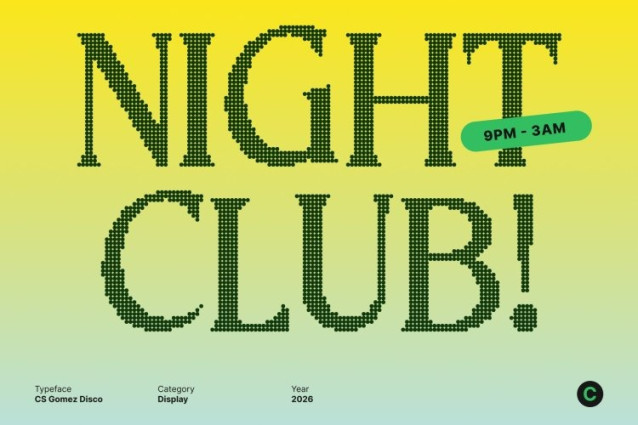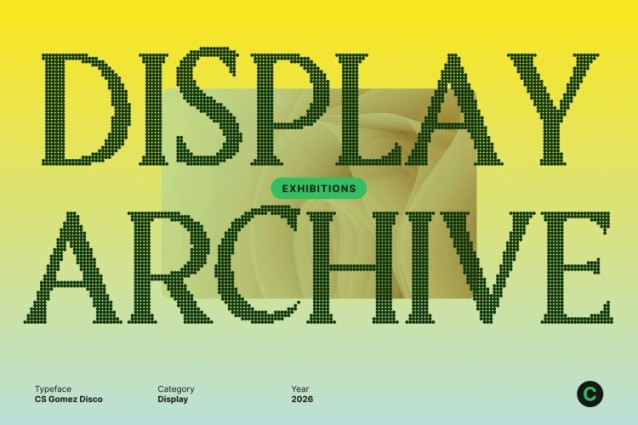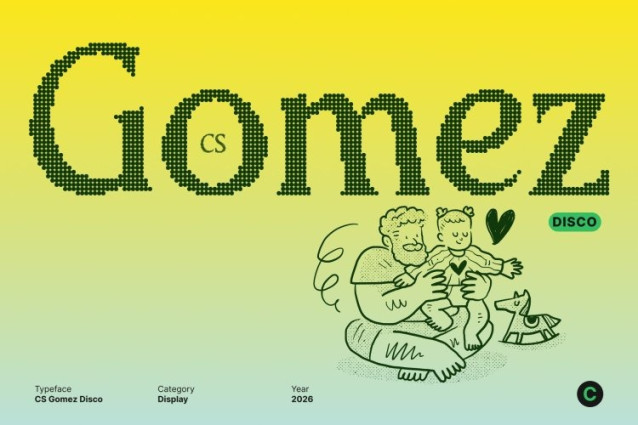
CS Gomez Disco Font
CS Gomez Disco Font This is a modern serif font defined by sharp angles, refined proportions, and confident structure now infused with vibrant disco spirit. Each letterform is meticulously crafted to balance sophistication and excitement, delivering a typeface that feels elegant, powerful, and alive under flashing lights.
Sleek Geometry with Glamorous Motion
The crisp angular details create a sense of precision and authority, while the modern serif construction ensures graceful flow. Enhanced with disco-inspired energy, the font gains a dynamic rhythm like reflections on a glossy dance floor making every word feel expressive, stylish, and visually magnetic.
Luxury Branding with a Festive Edge
Designed for luxury brands, editorial layouts, fashion visuals, and premium campaigns, this font elevates design with confidence and celebration. Whether applied to logos, packaging, magazine covers, or high-end advertising, it delivers a glamorous presence that blends professionalism with nightlife allure.
Elegant Craftsmanship Meets Disco Energy
This font is more than a serif it’s a statement of modern elegance powered by festive confidence. The fusion of sharp serif precision, clean geometry, and disco vibrance creates a typeface that feels timeless yet electric. Perfect for designers seeking sophistication with sparkle, authority with energy, and elegance that shines like the dance floor.